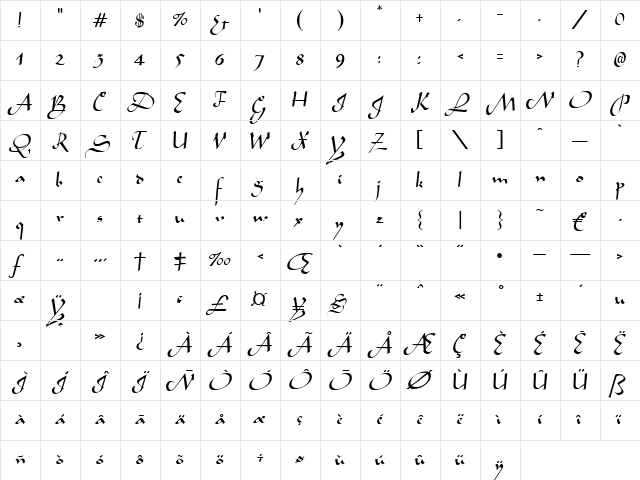
Shamar Regular
Design Context for Shamar
Shamar is a composed and adaptable typeface that performs quietly and consistently across a wide range of design contexts.